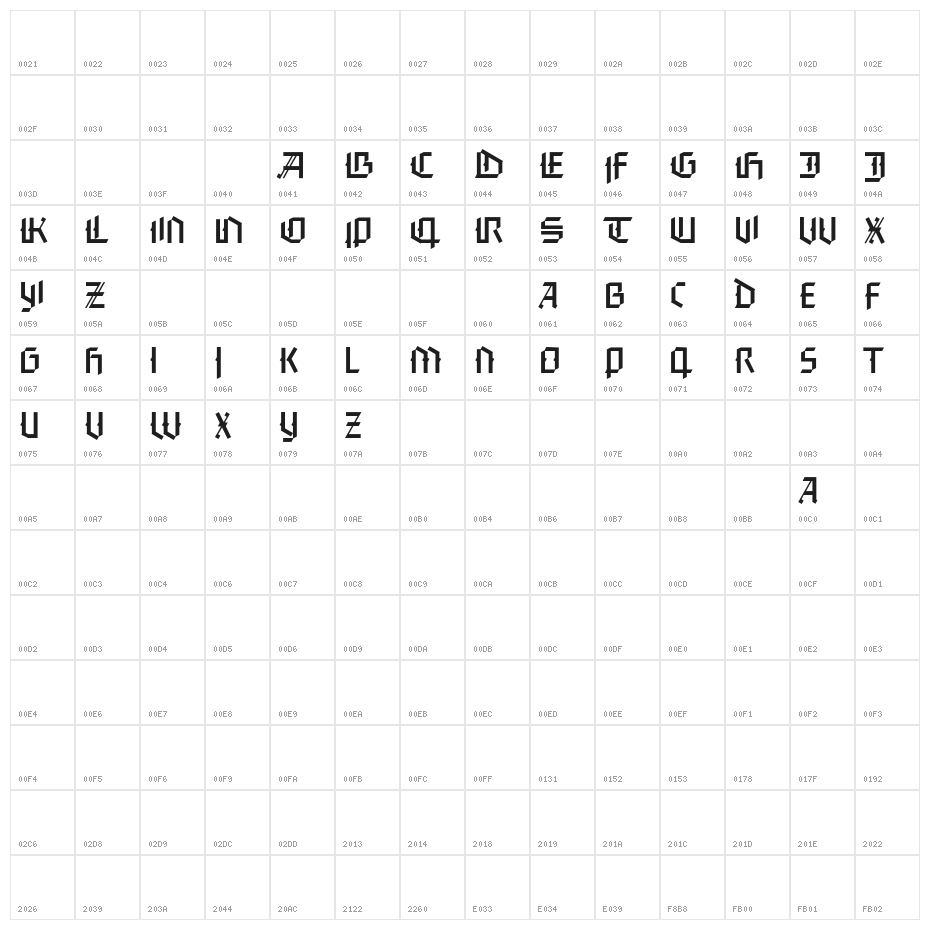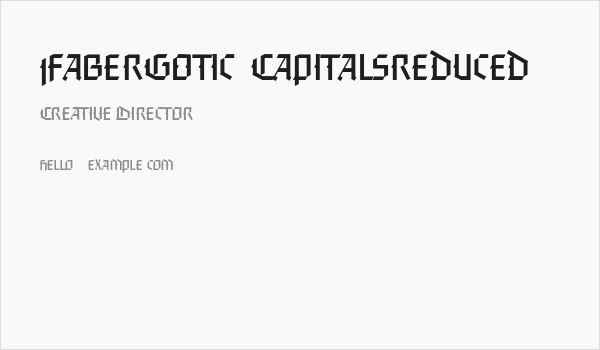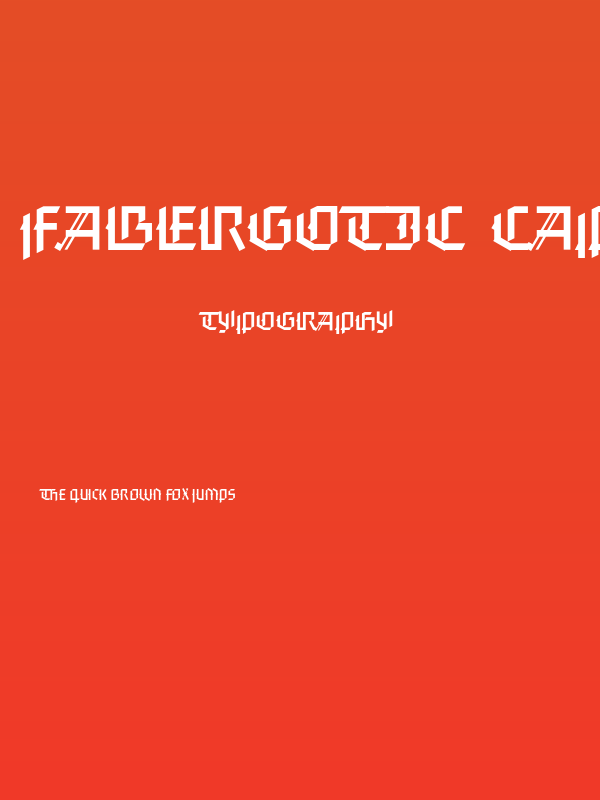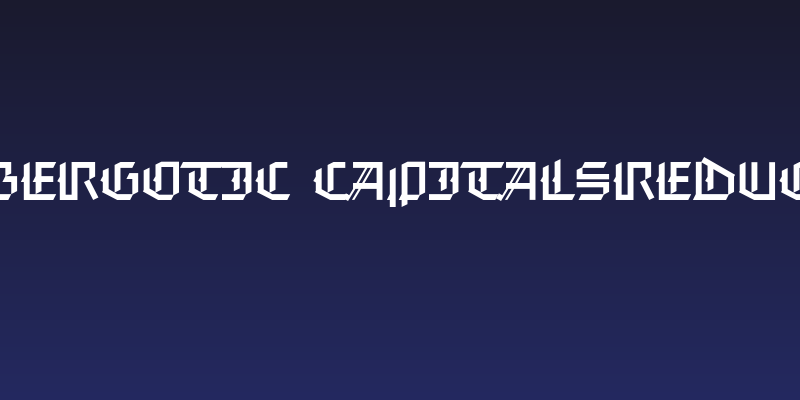
FaberGotic-Capitalsreduced Font
This font exhibits a bold and striking blackletter style, characterized by its sharp, angular lines and intricate details. The uppercase letters are designed with a strong geometric influence, creating a sense of rigidity and formality. The strokes are thick and consistent, providing a high contrast that enhances readability while maintaining an ornate appearance. The overall design is reminiscent of traditional Gothic scripts, yet it incorporates modern elements that make it suitable for contemporary use. The font's unique aesthetic makes it ideal for projects that require a dramatic and historical touch.
| Proposed Projects | Ideal for branding, posters, book covers, and any design requiring a dramatic, historical aesthetic. |